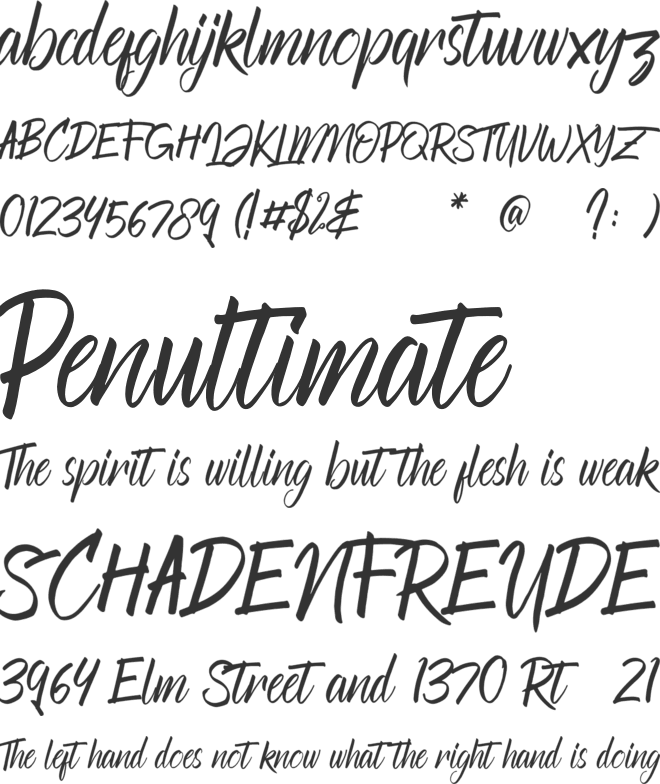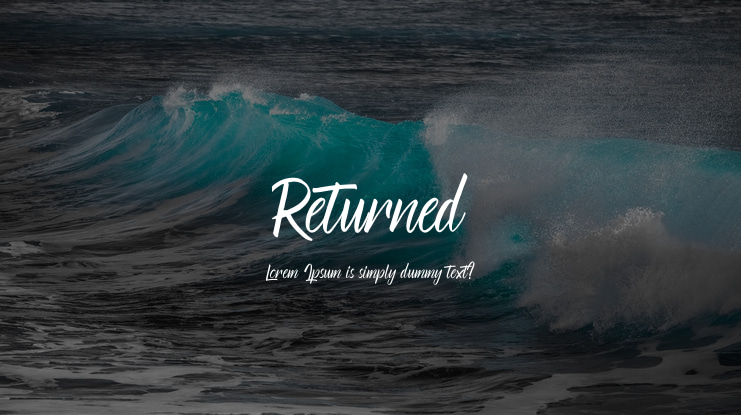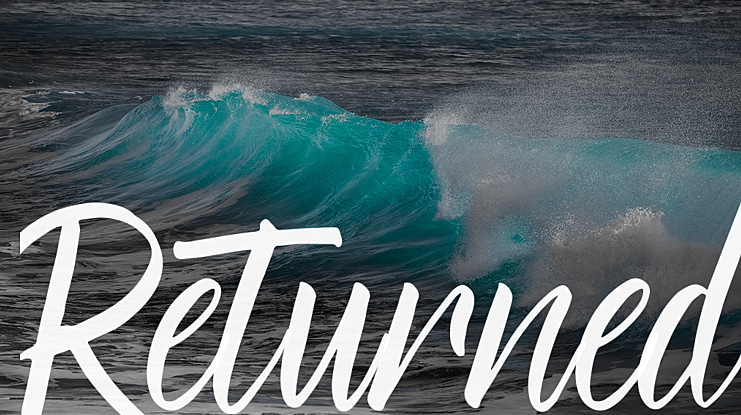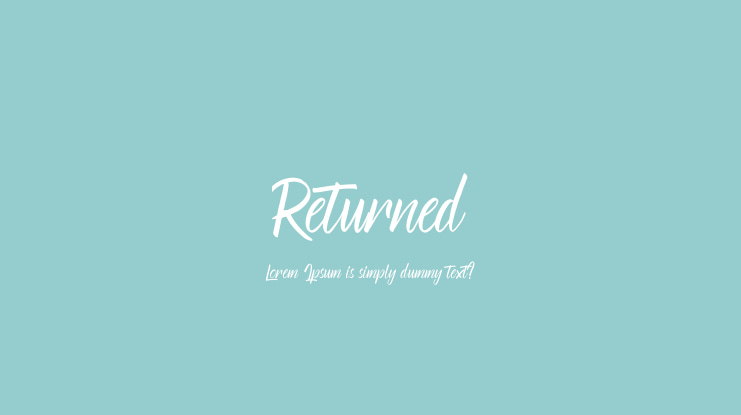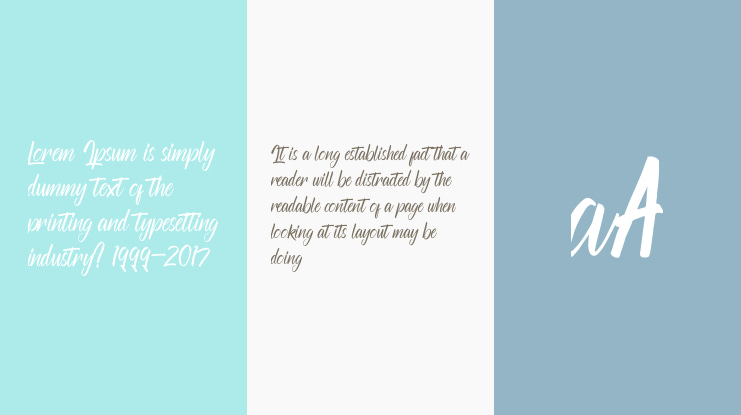
Returned Font
Muhammad Wahyudin
Returned font is created directly with the brush pen, with a slight improvement so it looks tidier. This font is perfect for tshirt design, watermark, branding, other design products.